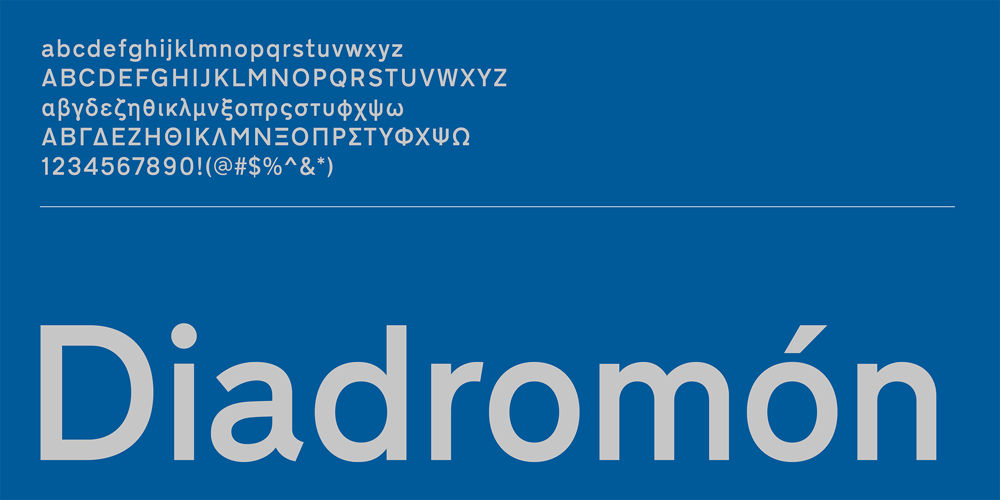
CF Diadromon
CF Diadromon font
CF Diadromon Font Family was designed by Panos Haratzopoulos and published by Fonts.GR. CF Diadromon contains 16 styles and family package options. CF Diadromon was designed in 2014-15 under assignment to streamline the road signage in Greece. It is a revival of the familiar letters that we read on the blue signs of provincial roads and local signage of Greece. Initially, the typeface was designed and adopted by the Hellenic Ministry of Public Works in 1974 having emerged from the adaptation of the British model designed by Jock Kinneir & Margaret Calvert in the 60’s. The digital version CF Diadromon, free from errors and design inconsistencies of the original design, supports Greek Monotonic and full Western Latin character set, monospaced numbers, fractions, etc. In 2017 CF Diadromon (Dromon) was expanded to 16 styles. (Diadromón, Dia-Dromos, greek Διαδρομών, general plural form of Diadromos, meaning Routes, Ways, Trips)